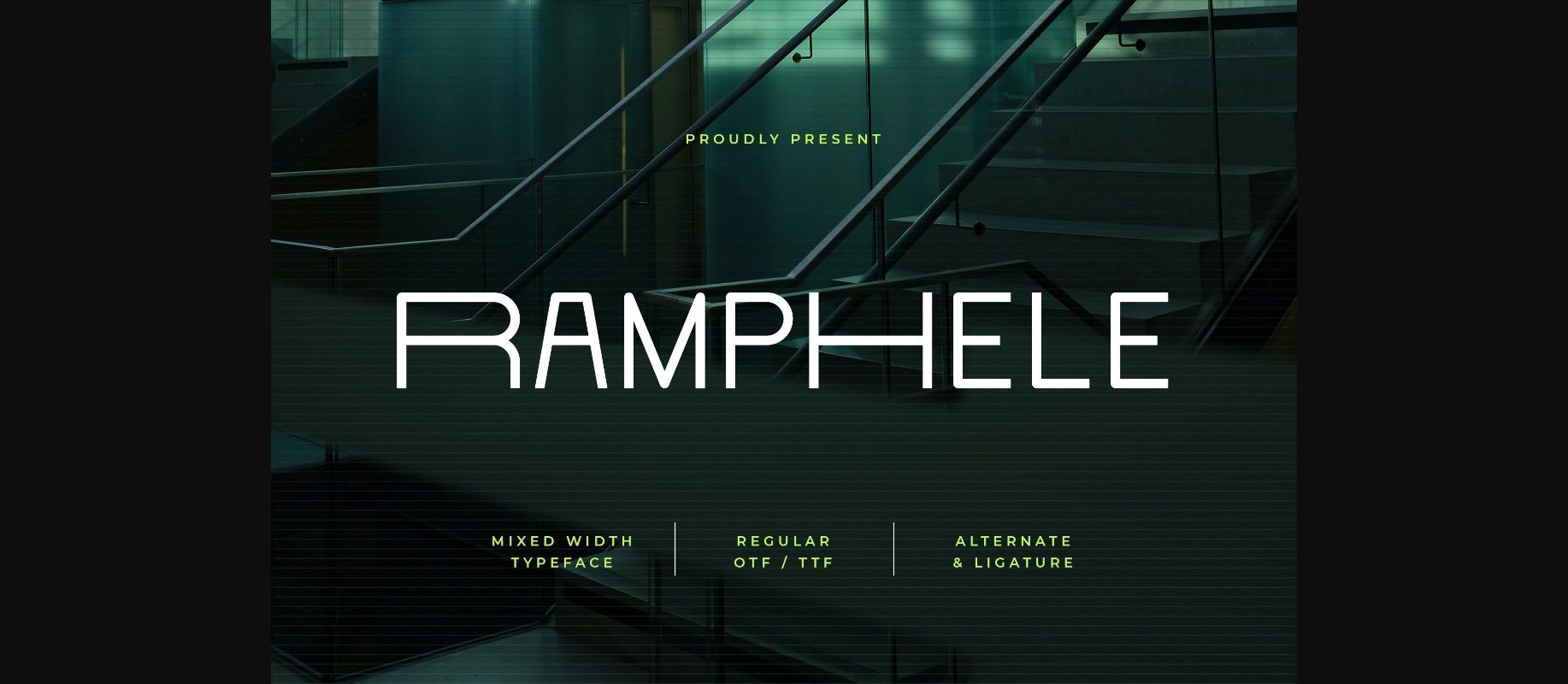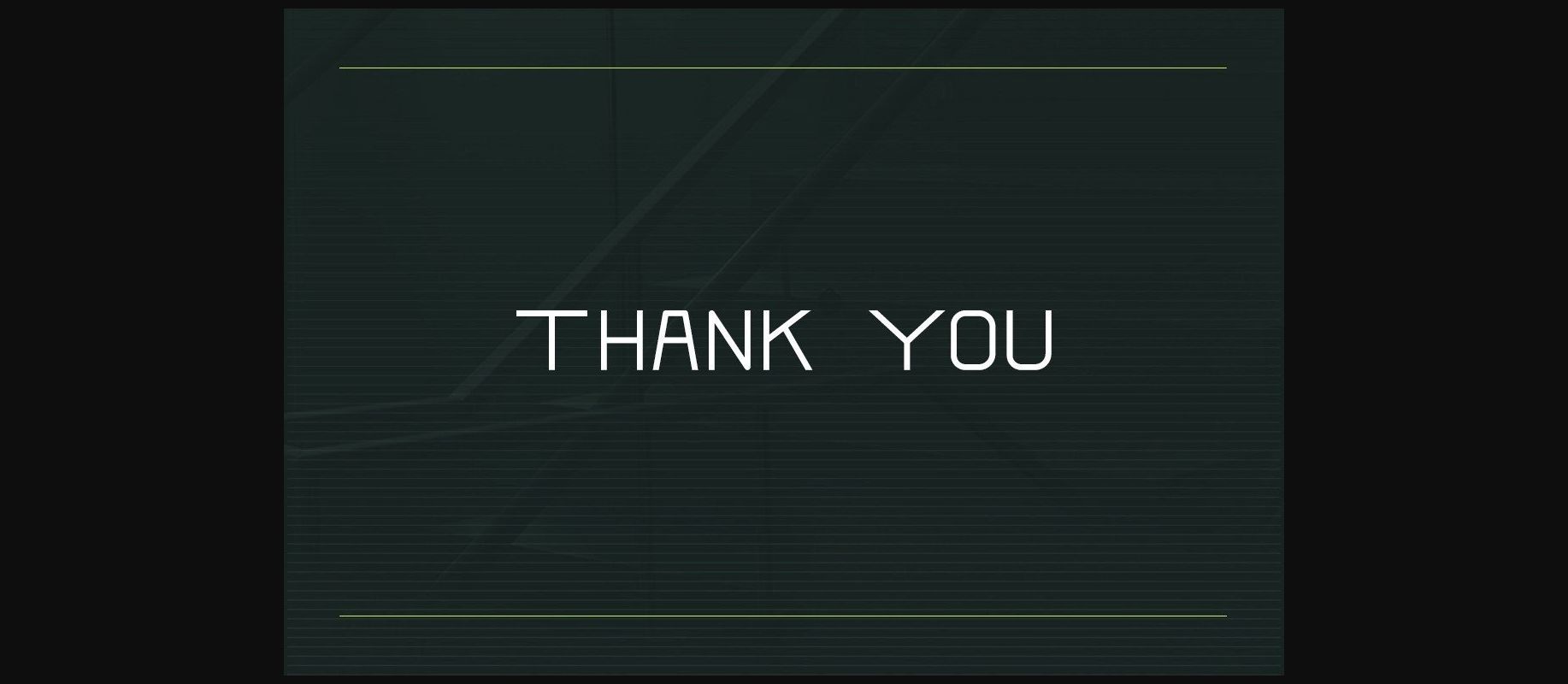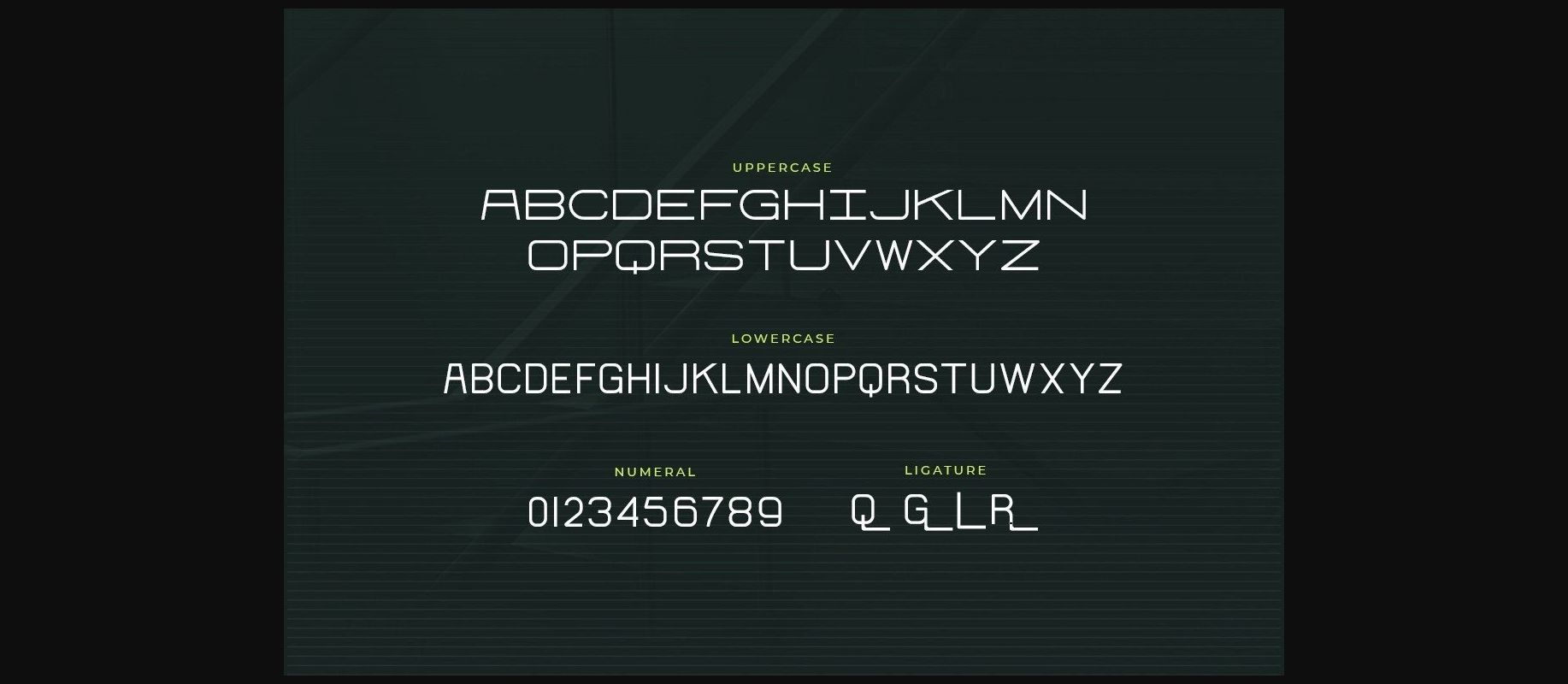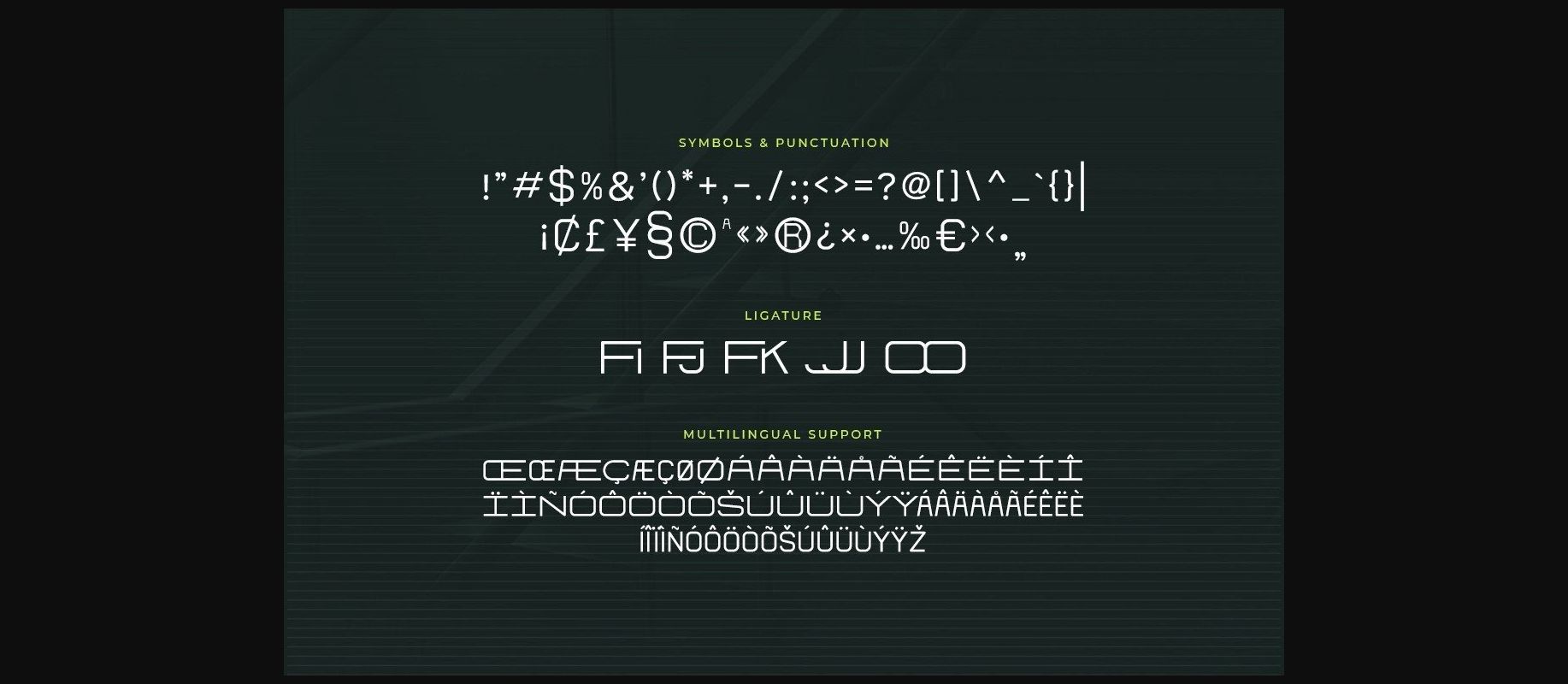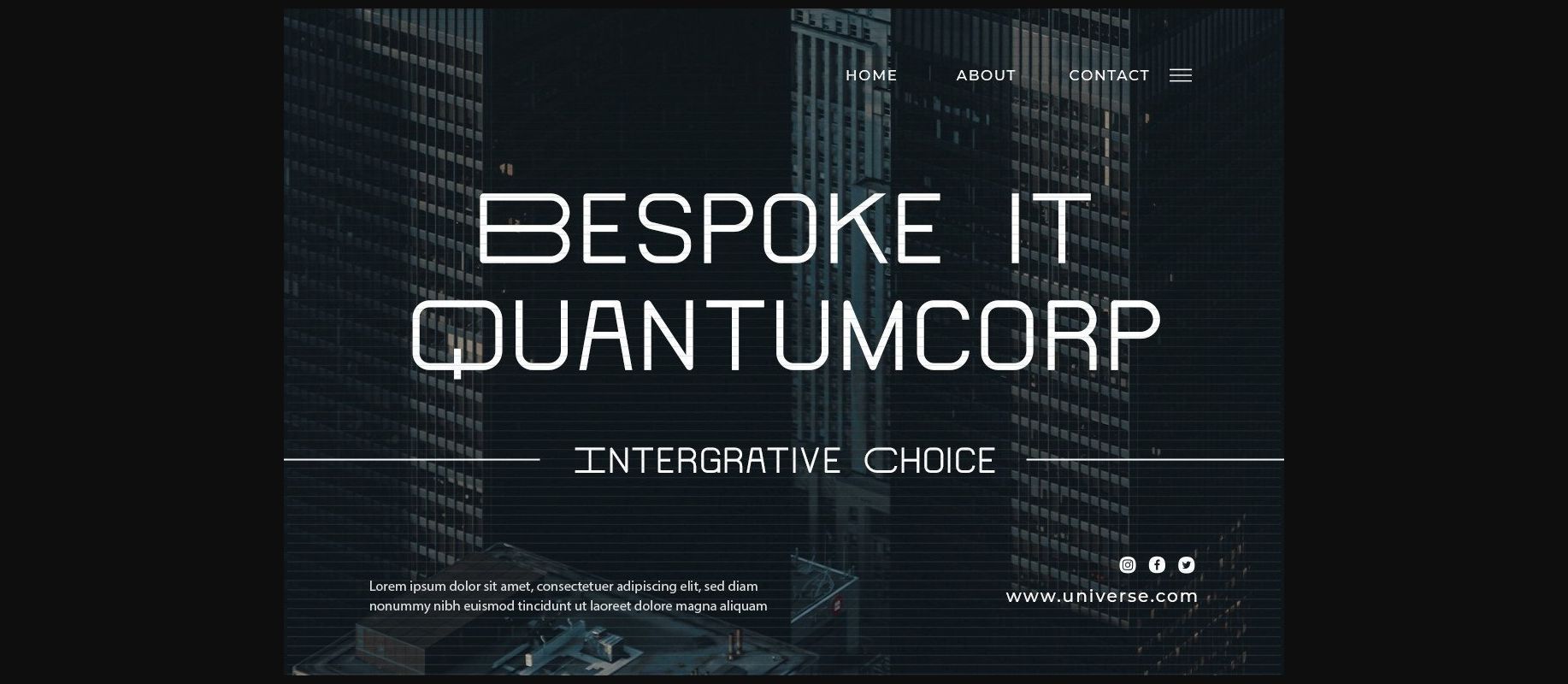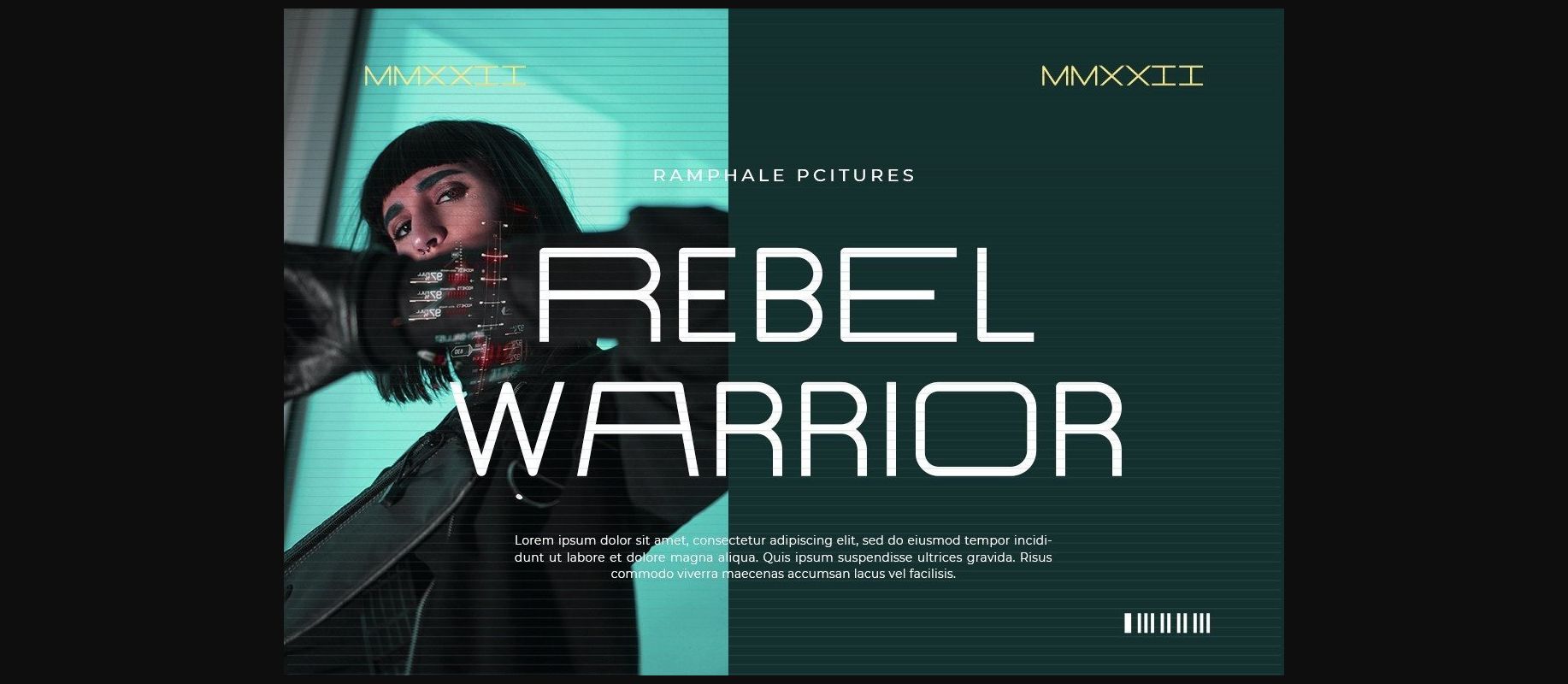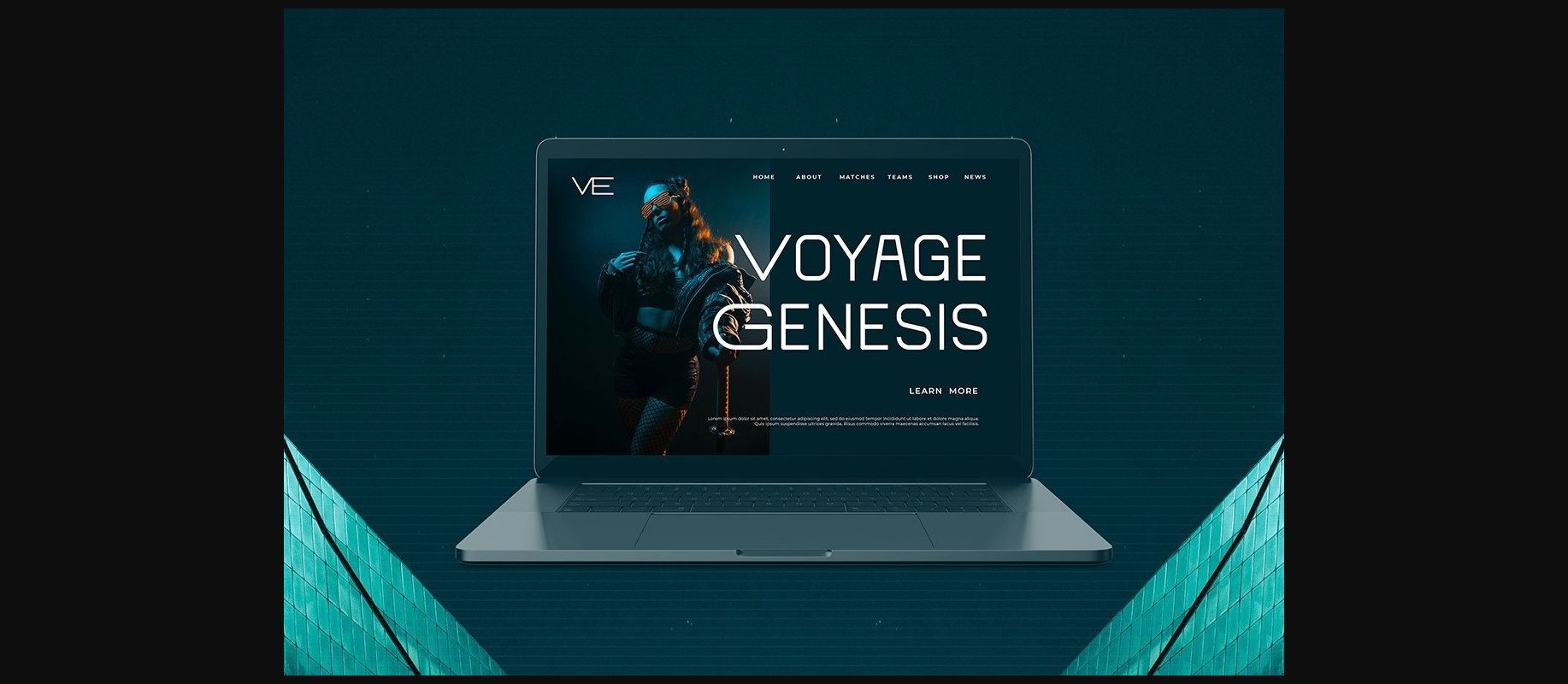
About Ramphele Font
Ramphele is a mixed width typeface.
This mixed-width set of characters looks modern on business cards, but also as a headline for posters, websites, and so much more.